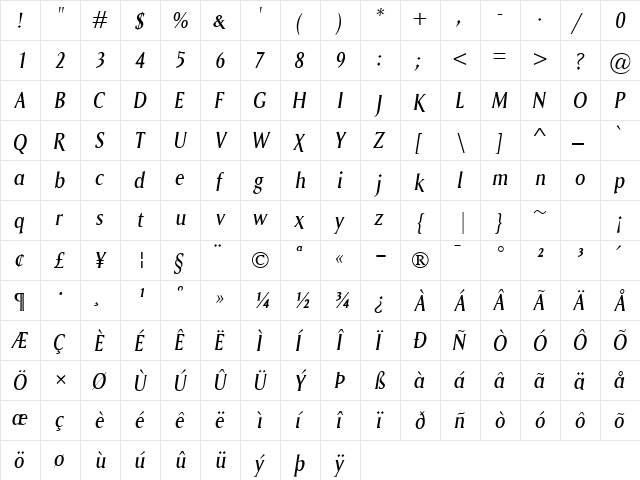
Saga Italic
Design Context for Saga Typeface
Saga takes a measured approach to typography — its balanced proportions and neutral character make it a reliable workhorse for both digital and print work. Its italic angle brings a sense of urgency and motion to the letterforms.
Pro Tip: Use Saga for emphasis, pull quotes, and subheadings where its slanted energy can add rhythm to the layout.